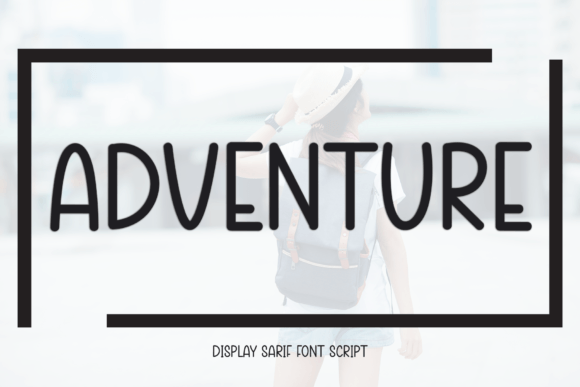
The Ultimate Font for Creative Adventures: A Deep Dive into Adventure Font
I’ll never forget the time I was working on a project for a client who needed a font that was both modern and playful. I had spent hours scouring the internet for the perfect one, but nothing seemed quite right. That was until I stumbled upon Adventure Font. It was love at first sight! 😍 With its clean lines, friendly vibe, and versatility, it quickly became my go-to font for all sorts of creative projects. In this article, I’ll share my experience with Adventure Font, and explore its features, uses, and alternatives.
An Honest Review of Adventure Font
So, what makes Adventure Font so special? Let’s dive into the good stuff! 🎉
• ✨ Modern and sleek design: Adventure Font has a fresh, contemporary feel that’s perfect for digital designs, presentations, and crafts.
• ✅ Highly versatile: This font can be used for a wide range of projects, from greeting cards and invitations to logos and branding.
• 🌈 Great for multicolored designs: Adventure Font looks amazing in multiple colors, making it ideal for designs that need a pop of color.
Of course, no font is perfect, and Adventure Font has a few minor quirks:
• 🤔 Limited serif options: As a sans-serif font, Adventure Font may not be the best choice for projects that require a more traditional, serif look.
• ⚠️ Some glyphs may require manual adjustment: While Adventure Font has a wide range of glyphs and OpenType features, some users may need to tweak them to get the desired look.
The Story Behind Adventure Font
Adventure Font was designed with the creative adventurer in mind. Its designer wanted to create a font that was both modern and playful, with a friendly vibe that’s perfect for a wide range of projects. Inspired by the great outdoors and a love of exploration, Adventure Font is the perfect companion for any creative journey.
What is Adventure Font? Adventure Font is a modern sans-serif font designed for creative projects, including crafts, digital design, presentations, and more.
Does Adventure Font have OpenType features? Yes, Adventure Font has a range of OpenType features, including glyphs, stylistic alternates, and more.